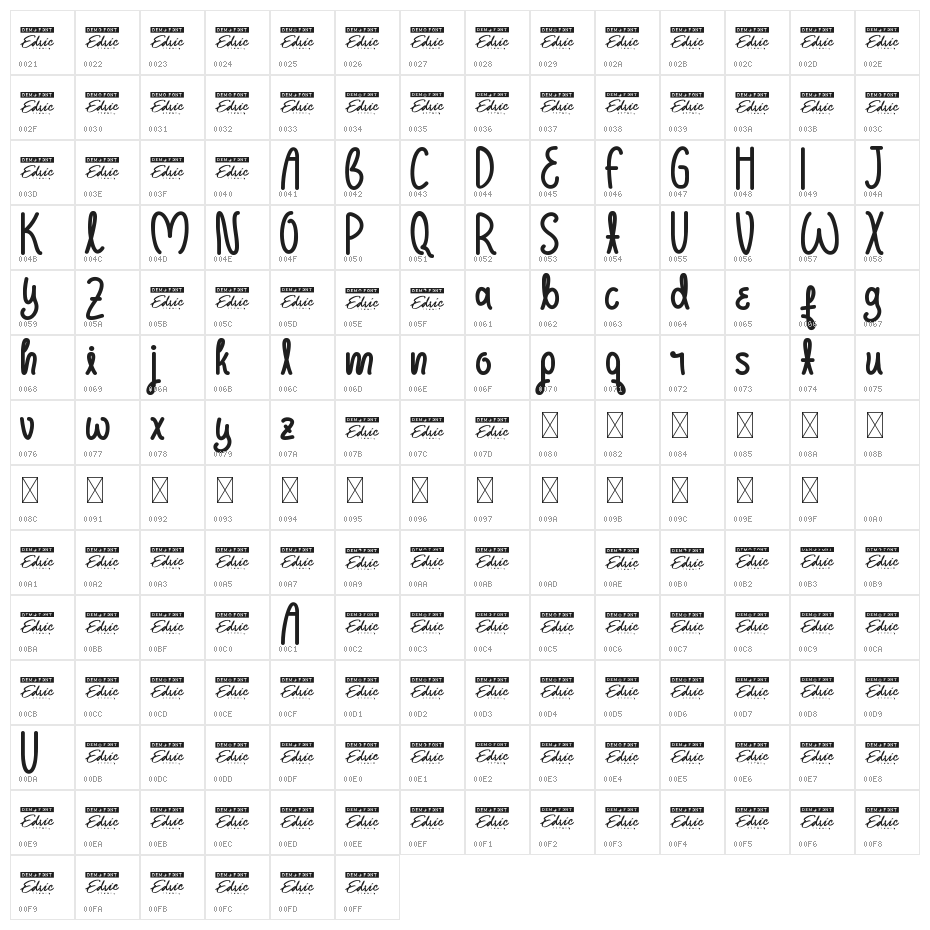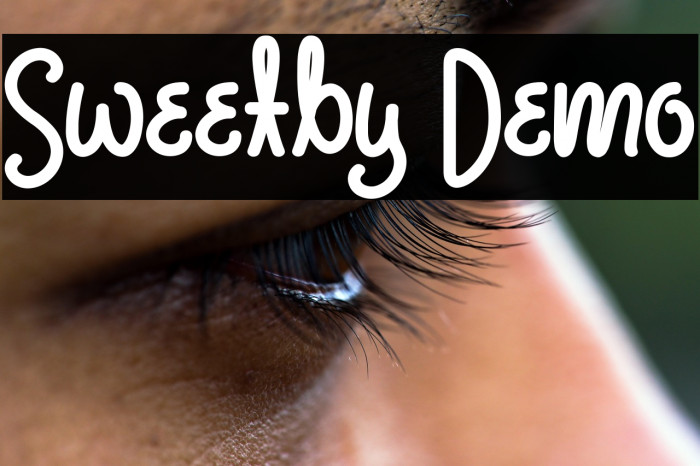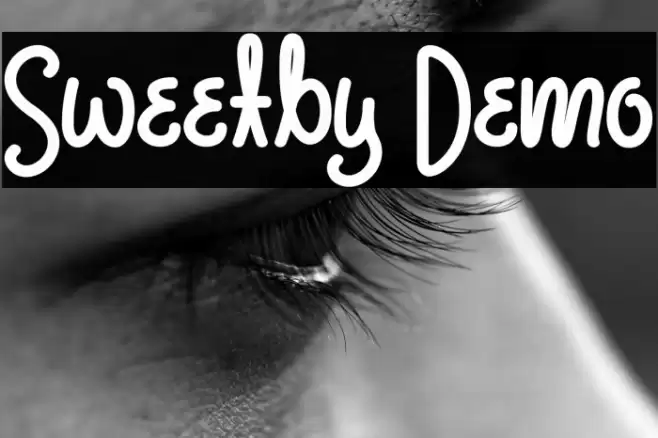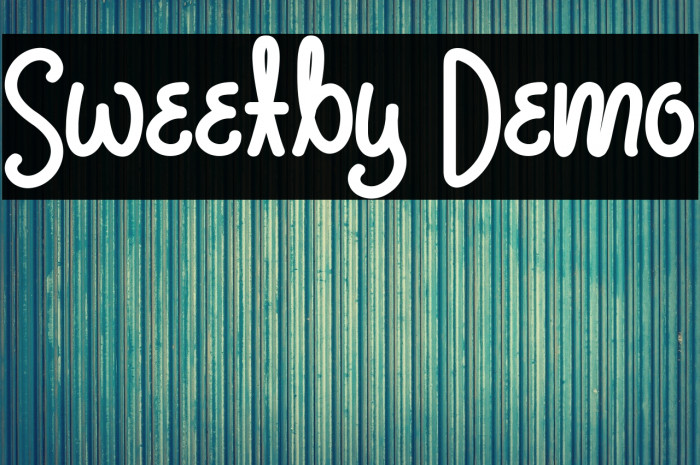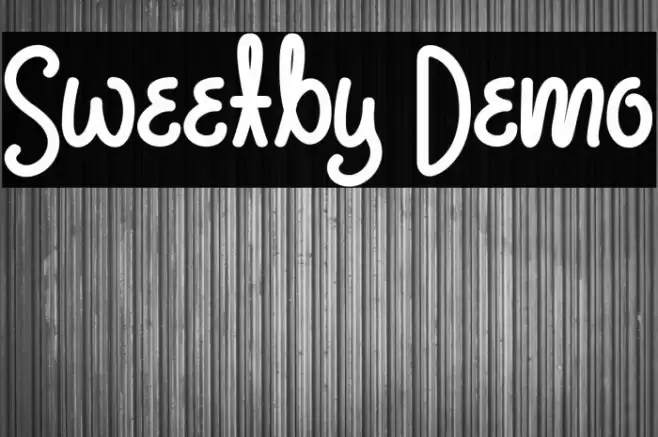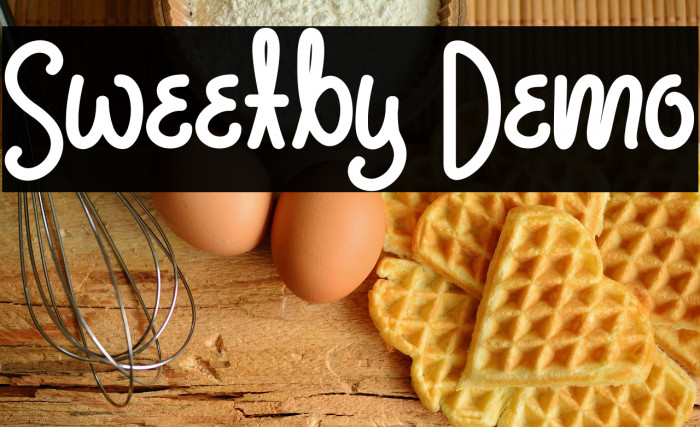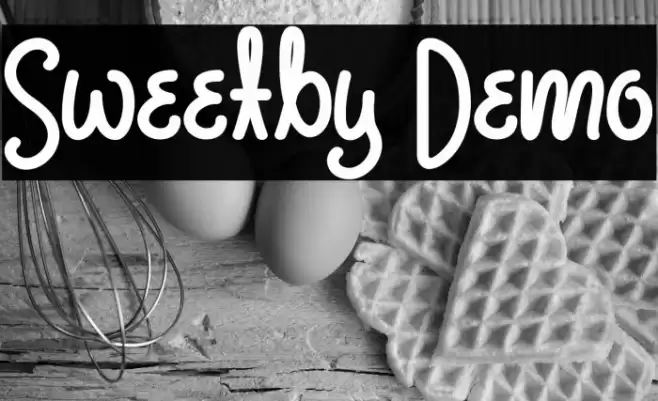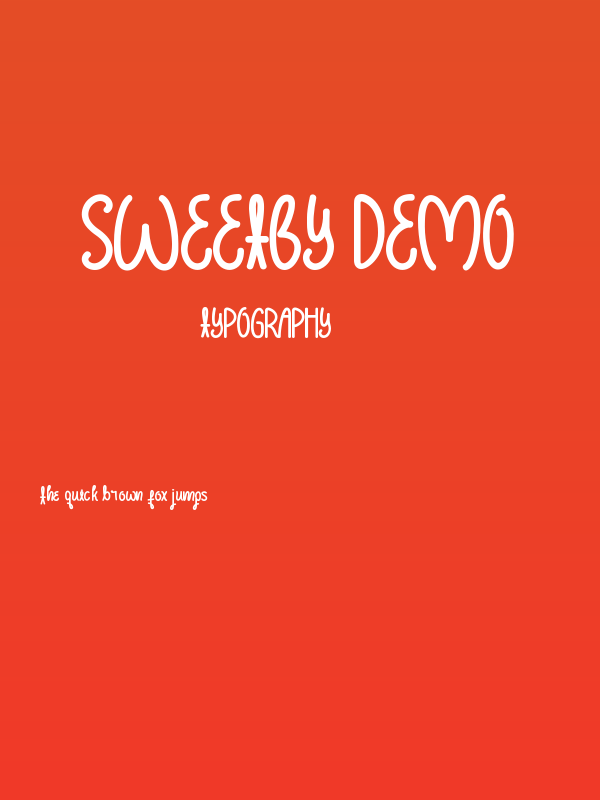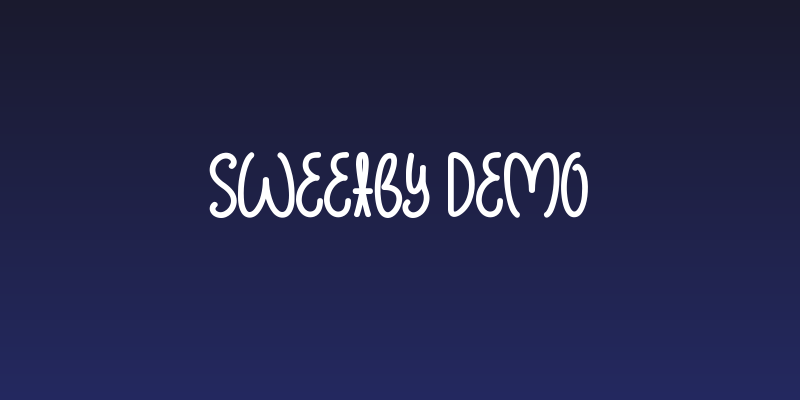
Sweetby Demo Font
Sweetby Demo Description
This playful and whimsical font features a unique blend of rounded and elongated letterforms, creating a sense of movement and fluidity. The uppercase letters are tall and narrow, with a slight slant that adds a dynamic feel. The lowercase letters maintain a consistent style, with some characters featuring distinctive loops and curves that enhance the font's charm. The overall design is bold and eye-catching, making it suitable for creative and informal applications. The font's thick strokes and smooth curves give it a friendly and approachable appearance, perfect for projects that require a touch of personality and flair.